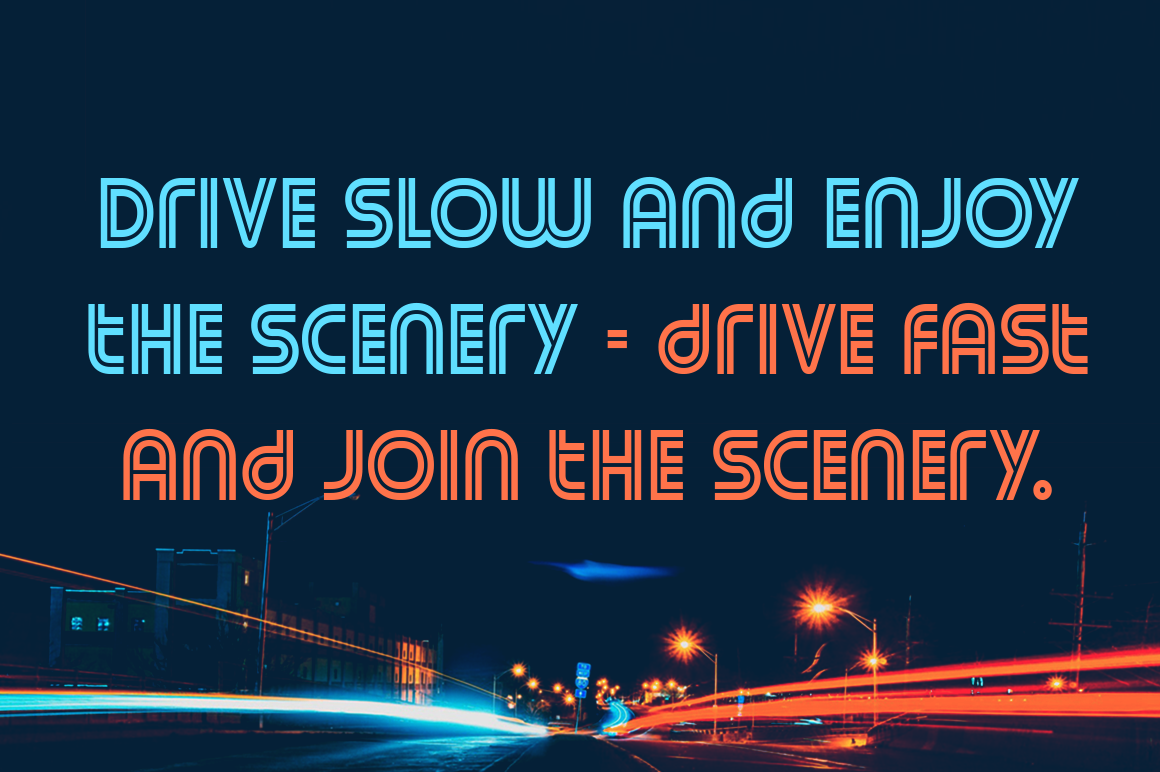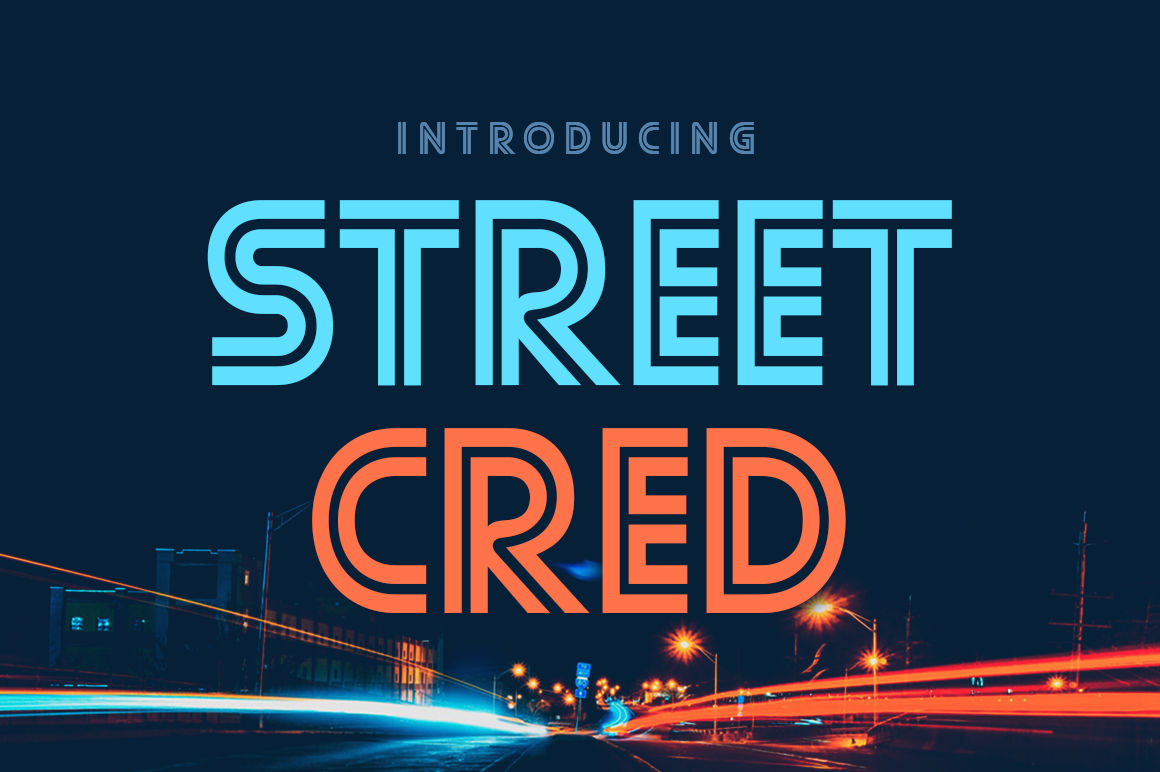
HomePersonal Use FreeStreet Cred Personal Use Free Street Cred FacebookTwitterPinterestWhatsApp 1 of 2 About Street Cred Font Street Cred is a dual-stripe geometric headline font, perfect for both modern and retro designs. DOWNLOAD NOW People also explored Amibata Font Malovely Font Sweet Home Font Romantic Dinner Font Merhique Family Font Museful Font Amazon Font Cut Along Squirrelly Whiskers Font 162 0 TagsStreet Cred Font Previous articlePirulenNext articleSpectrashell LEAVE A REPLY Cancel reply Comment: Please enter your comment! Name:* Please enter your name here Email:* You have entered an incorrect email address! Please enter your email address here Website: Save my name, email, and website in this browser for the next time I comment. Personal Use Free Rollayka Personal Use Free Read more about this font BD TinyFont Personal Use Free Read more about this font Knucklehead Personal Use Free Read more about this font Dolce Vita Personal Use Free Read more about this font BLOG Exploring Font Trends Shaping Communication in the Digital Era Fonts, like all design elements, are subject to trends. They play a crucial role in communicating a brand's personality,... Top 7 Google Fonts Alternatives for Faster and Privacy-Friendly Web Design (2025) Where to Buy American Fonts Online in 2024 Free vs Paid Fonts: Why Investing in Premium Fonts Is Worth It